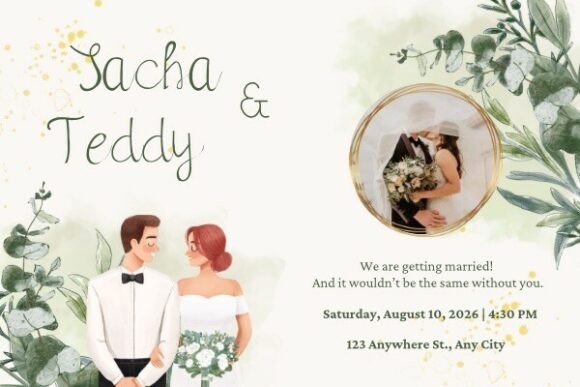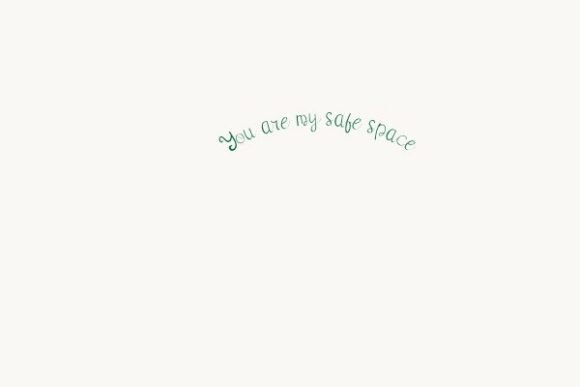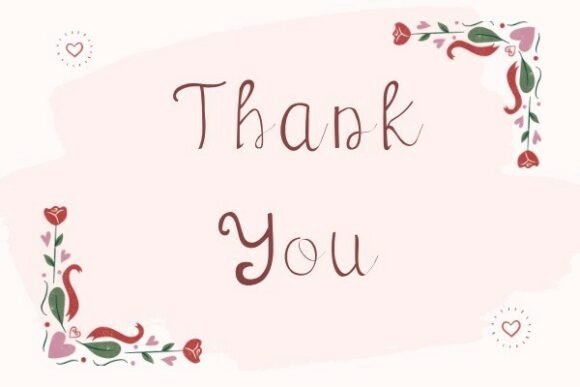
Bollen Font: Adding a Touch of Whimsy to Your Designs
Are you looking for a font that can infuse your work with a playful personality? Look no further than the Bollen Quirky Handwritten Font. This charming font is characterized by its whimsical loops and irregular, hand-drawn bounce, making it the perfect choice for fun and creative projects.
What Makes Bollen Font So Special?
The Bollen Quirky Handwritten Font is exceptionally well-suited for a variety of design projects, including nursery decor, children’s birthday shirts, and “punny” tote bags. Its light, airy feel is reminiscent of satin stitching, which keeps the design from being too heavy, allowing the “quirky” details to shine through.
One of the standout features of the Bollen Font is its unique and joyful alphabet. Each letter is carefully crafted to bring a smile to your face, making it the perfect choice for designers and crafters who want to add a touch of personality to their work.
Whether you’re a designer looking for a font to add some whimsy to your branding or a crafter looking for a unique alphabet to use in your embroidery projects, the Bollen Quirky Handwritten Font is an excellent choice. Its playful personality is sure to shine through in any project, making it a great way to add some personality to your work.
For designers, the Bollen Font is a great choice for a variety of projects, including:
- Nursery decor: Add a touch of whimsy to nursery decor with the Bollen Quirky Handwritten Font. Its playful personality is sure to delight both kids and adults alike.
- Children’s birthday shirts: Create fun and playful birthday shirts for kids with the Bollen Font. Its irregular, hand-drawn bounce is sure to add a touch of personality to any design.
- Tote bags: Add some humor to your tote bag designs with the Bollen Quirky Handwritten Font. Its “punny” personality is sure to bring a smile to anyone’s face.
Why Choose Bollen Font?
So why choose the Bollen Quirky Handwritten Font for your next design project? Here are just a few reasons:
- Unique and playful personality: The Bollen Font has a unique and playful personality that is sure to shine through in any project.
- Versatile: The Bollen Font is versatile and can be used in a variety of design projects, from nursery decor to tote bags.
- Easy to read: Despite its playful personality, the Bollen Font is easy to read, making it perfect for designs where you want to convey a message.
Tips for Using Bollen Font
Here are a few tips for using the Bollen Quirky Handwritten Font in your design projects:
- Keep it simple: While the Bollen Font is playful, it’s best to keep your design simple to ensure that the font is the star of the show.
- Experiment with colors: The Bollen Font looks great in a variety of colors, so don’t be afraid to experiment and find the perfect hue for your design.
- Pair with other fonts: The Bollen Font pairs well with other fonts, so feel free to get creative and pair it with a font that complements its playful personality.
The Bollen Quirky Handwritten Font is a unique and playful font that is sure to add a touch of personality to any design project. Its whimsical loops and irregular, hand-drawn bounce make it perfect for fun and creative projects, from nursery decor to tote bags. Whether you’re a designer or crafter, the Bollen Font is an excellent choice for anyone looking to add some whimsy to their work.